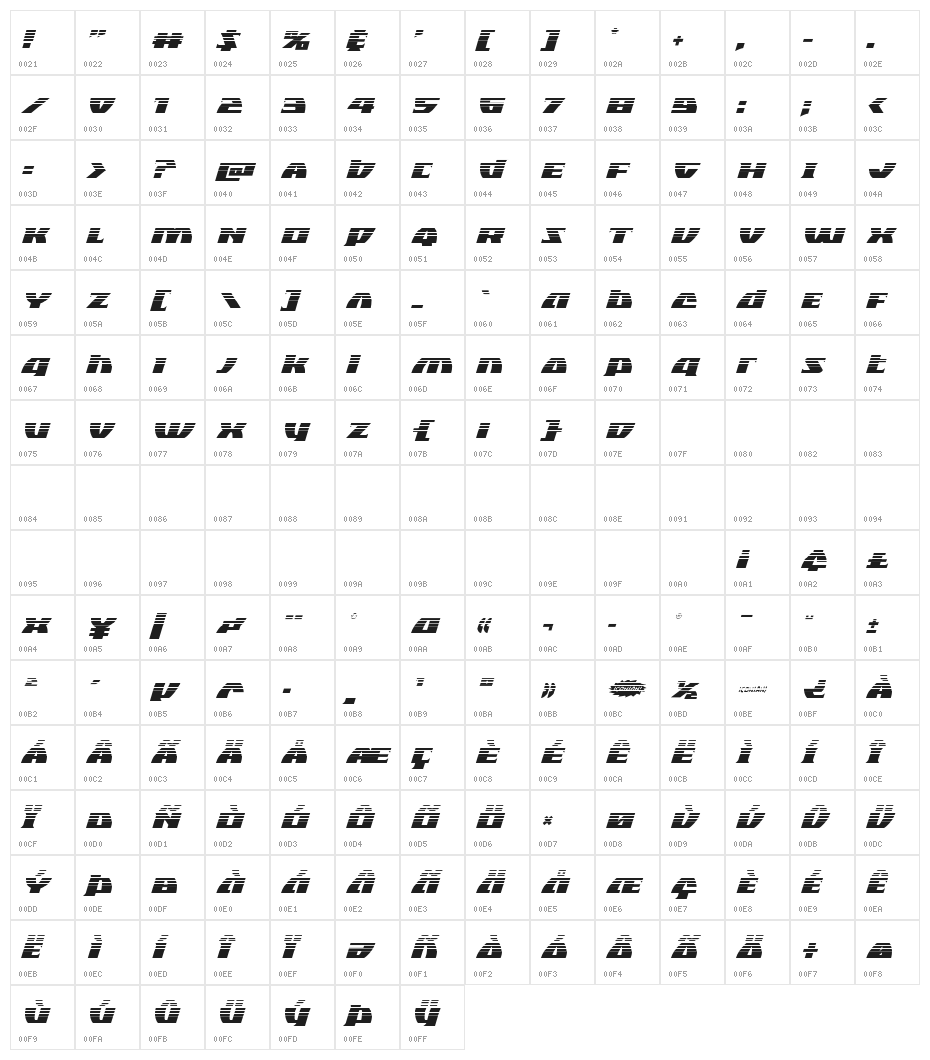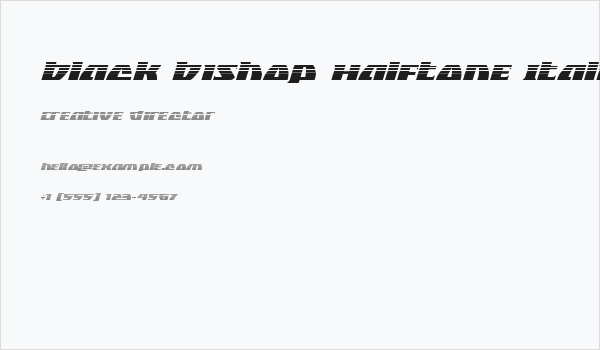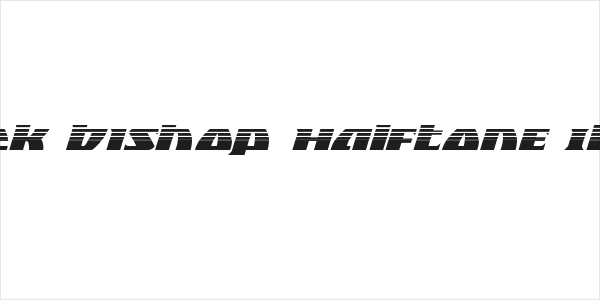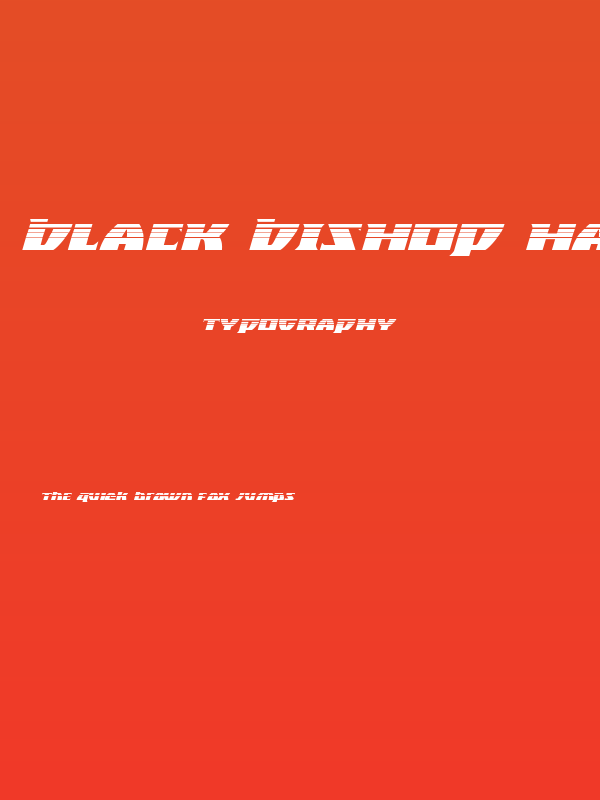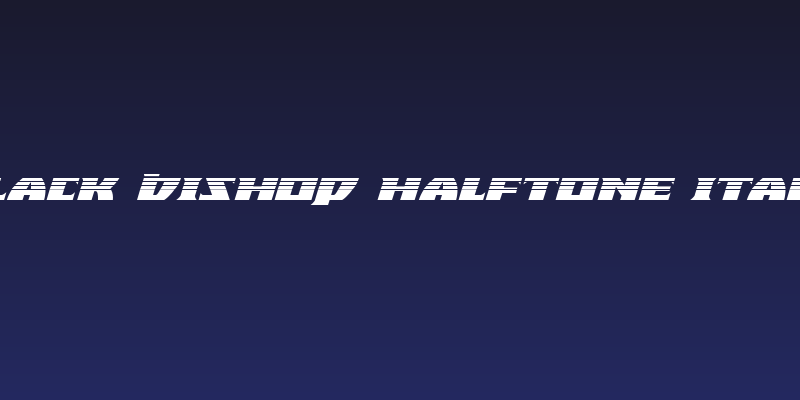
Black Bishop Halftone Italic Font
Black Bishop Halftone Italic Description
This font features a bold, italicized style with a distinctive halftone pattern that creates a dynamic and eye-catching effect. The characters are designed with a strong geometric structure, incorporating horizontal lines that give a sense of movement and energy. The uppercase and lowercase letters maintain a consistent style, with sharp angles and a futuristic appearance. The numbers and special characters are equally bold, ensuring uniformity across all text elements. This font's unique design makes it ideal for projects that require a modern and edgy look.
| Proposed Projects | Ideal for branding, posters, album covers, and any design requiring a modern, dynamic aesthetic. |